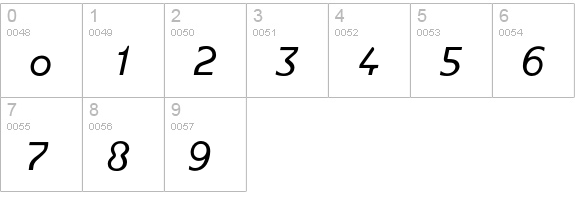
Gerstner BQ Light Italic is a refined, elegant, italic variant in the Gerstner typeface family \xE2\x80\x94 well suited to elegant body text, refined sub-headings, and luxury branding.
Gerstner BQ Light Italic font is a sophisticated and elegant typeface that exudes a sense of modernity and refinement. Its slanted, italic design adds a touch of flair to any text, making it perfect for use in editorial design, branding, and high-end projects. The delicate curves and subtle details of this font create a harmonious balance between legibility and style. What makes Gerstner BQ Light Italic font even more appealing is that it is available for free download at FontsMarket.com. This means you can easily access and use this beautiful typeface in your projects without any cost. Don't miss out on the opportunity to elevate your designs with the timeless charm of Gerstner BQ Light Italic font.